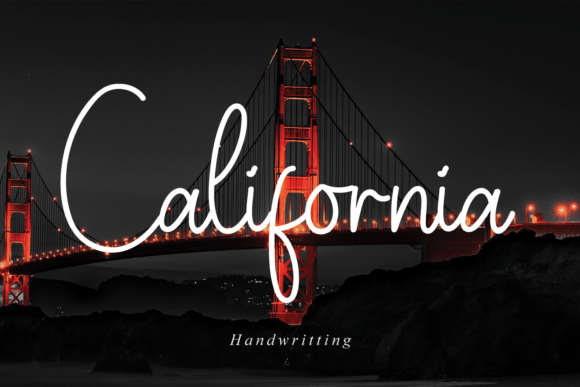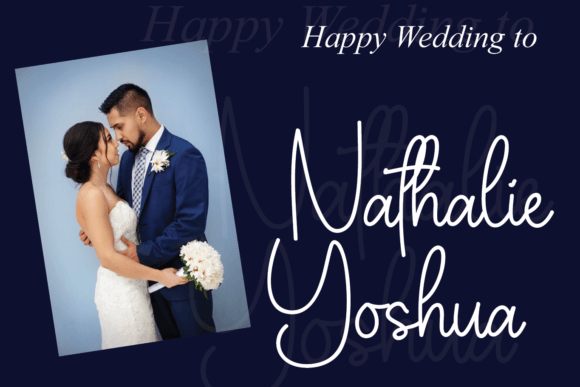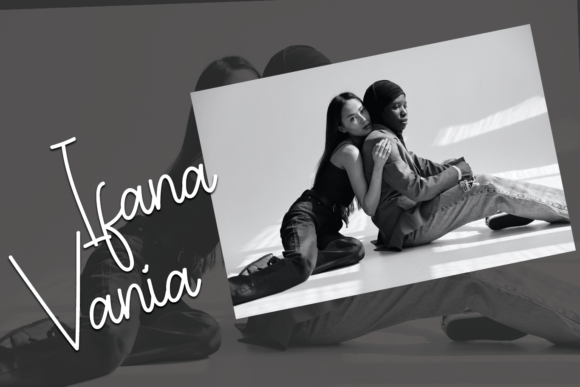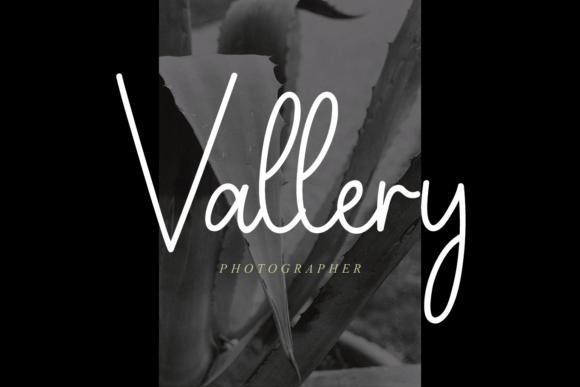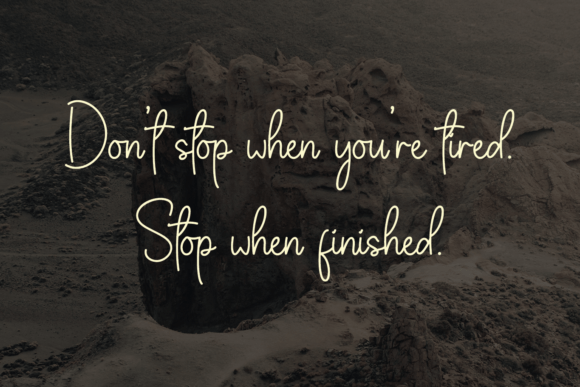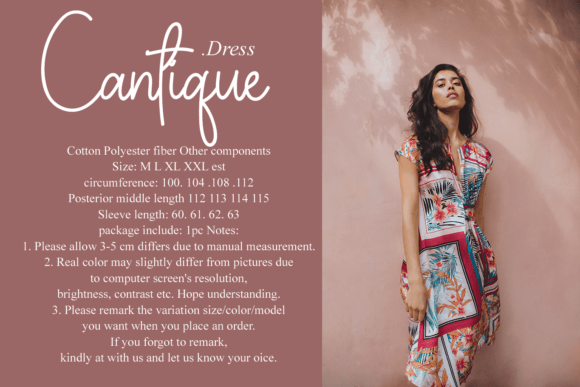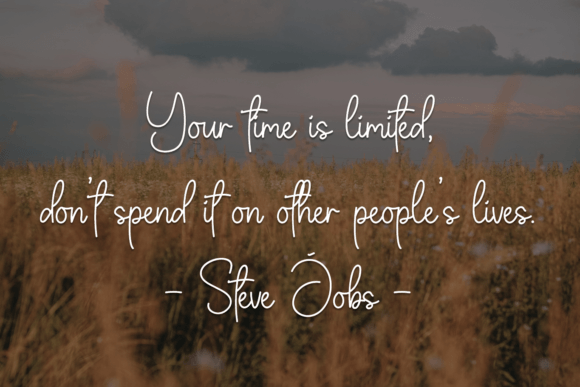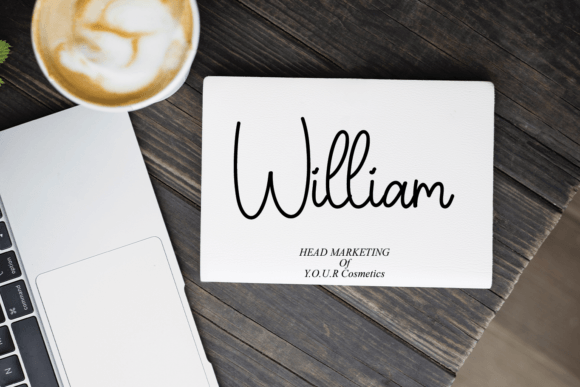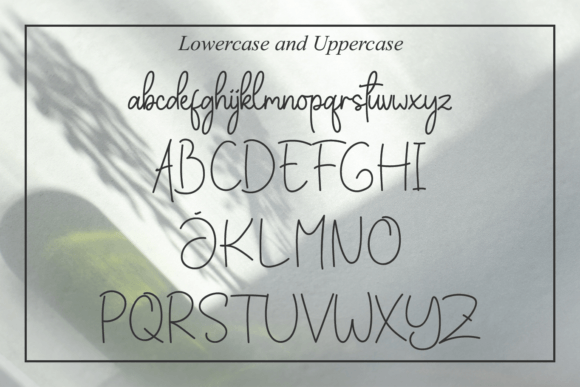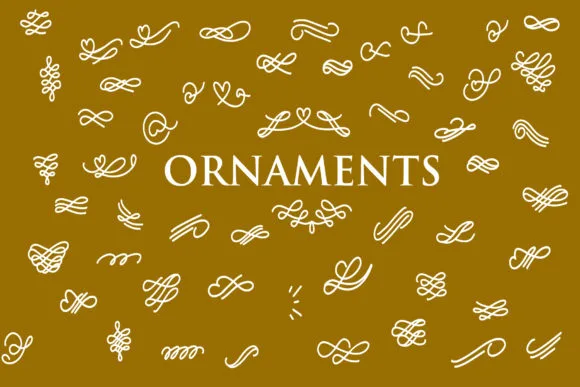
California Font
About California Font
**California**: *A Captivating Handwritten Masterpiece*
California isn’t merely a font; it’s a captivating masterpiece in the realm of handwritten script fonts. It’s expertly crafted to capture your heart and become an instant favorite. This font effortlessly blends timeless calligraphic influences with a contemporary and refreshing feel.
What sets California apart is its ability to maintain a sense of classic elegance while exuding a modern and vibrant aura. The font’s calligraphic roots give it an inherent classiness, while its fresh design ensures it remains relevant and appealing in today’s creative landscape.
California stands as a testament to the harmonious fusion of tradition and innovation. Its handwritten charm adds a touch of personal warmth to any project, making it suitable for a wide range of design applications. Whether you’re creating elegant wedding invitations, branding materials, social media graphics, or any other visual content, California is the font that can effortlessly elevate your designs.
In the realm of branding, California brings a sense of sophistication and authenticity, making it a valuable asset for logos and visual identities. It possesses the power to convey a brand’s character and values, resonating with its target audience on a personal level.
California is equally at home in the world of invitations and stationery. It infuses romantic and timeless beauty into every word, setting the tone for unforgettable events and heartfelt correspondence. Social media posts adorned with California radiate style and elegance, captivating your audience and leaving a lasting impression.
The versatility of California is one of its most remarkable features. It can seamlessly adapt from a formal and refined tone to a more relaxed and friendly one, making it suitable for various creative projects. Its ability to span different styles and themes ensures that it remains a cherished choice for designers and creators across diverse industries.
In summary, California transcends being merely a font; it’s a work of art that marries tradition and innovation with grace. Its unique blend of classic calligraphic influences and contemporary flair positions it as an indispensable tool for anyone aiming to make a timeless and memorable impact through their visual communication. Embrace the beauty of California, and watch your creative projects blossom into true works of handwritten elegance.